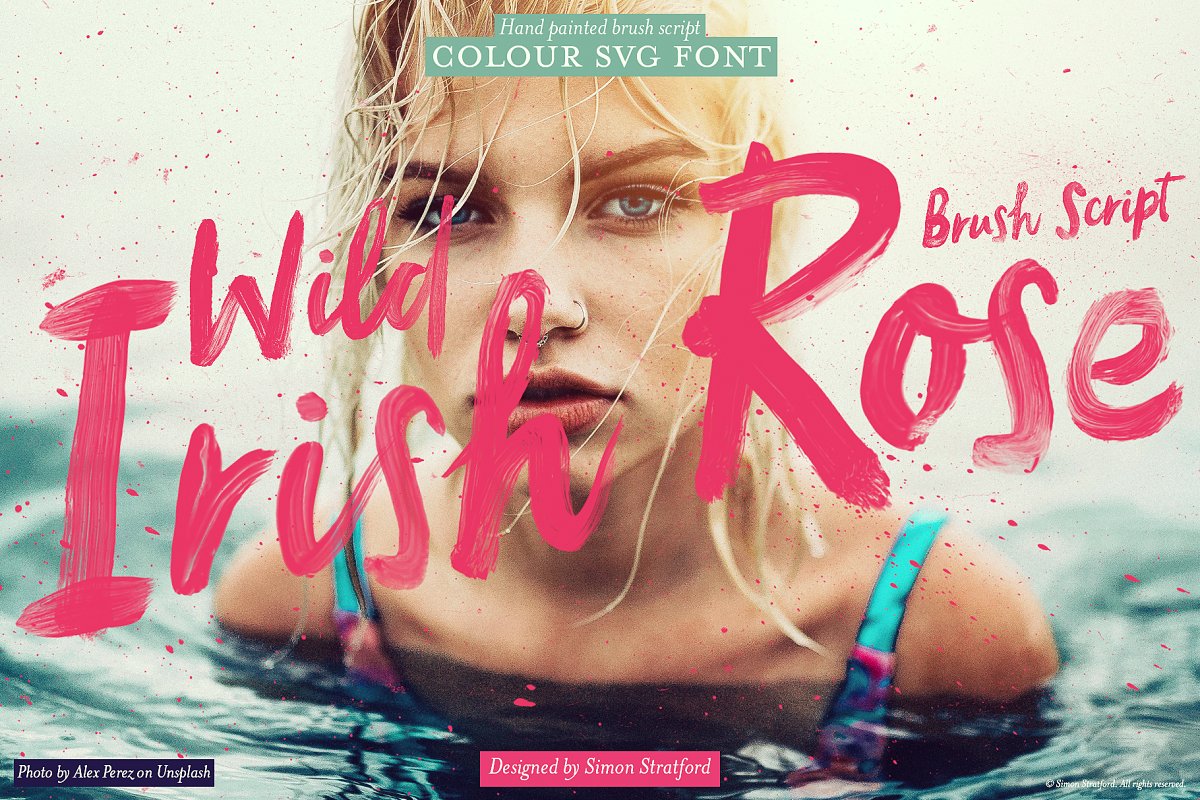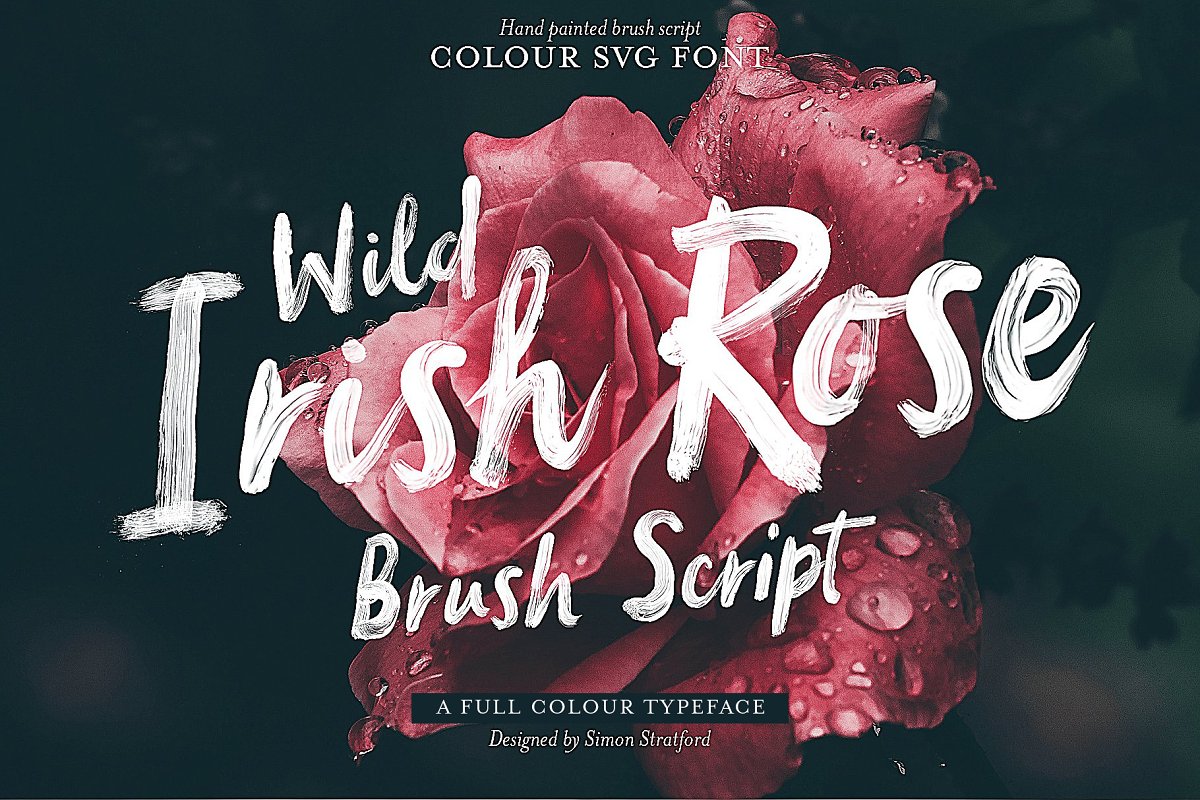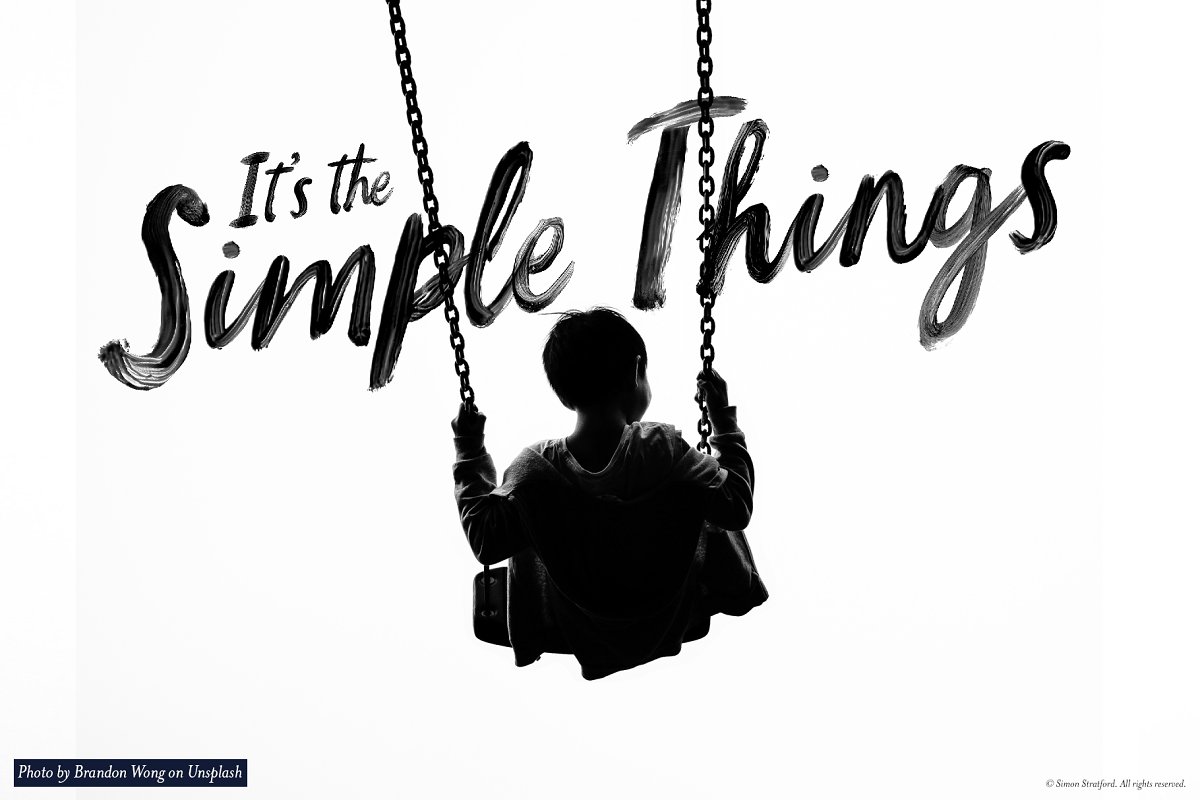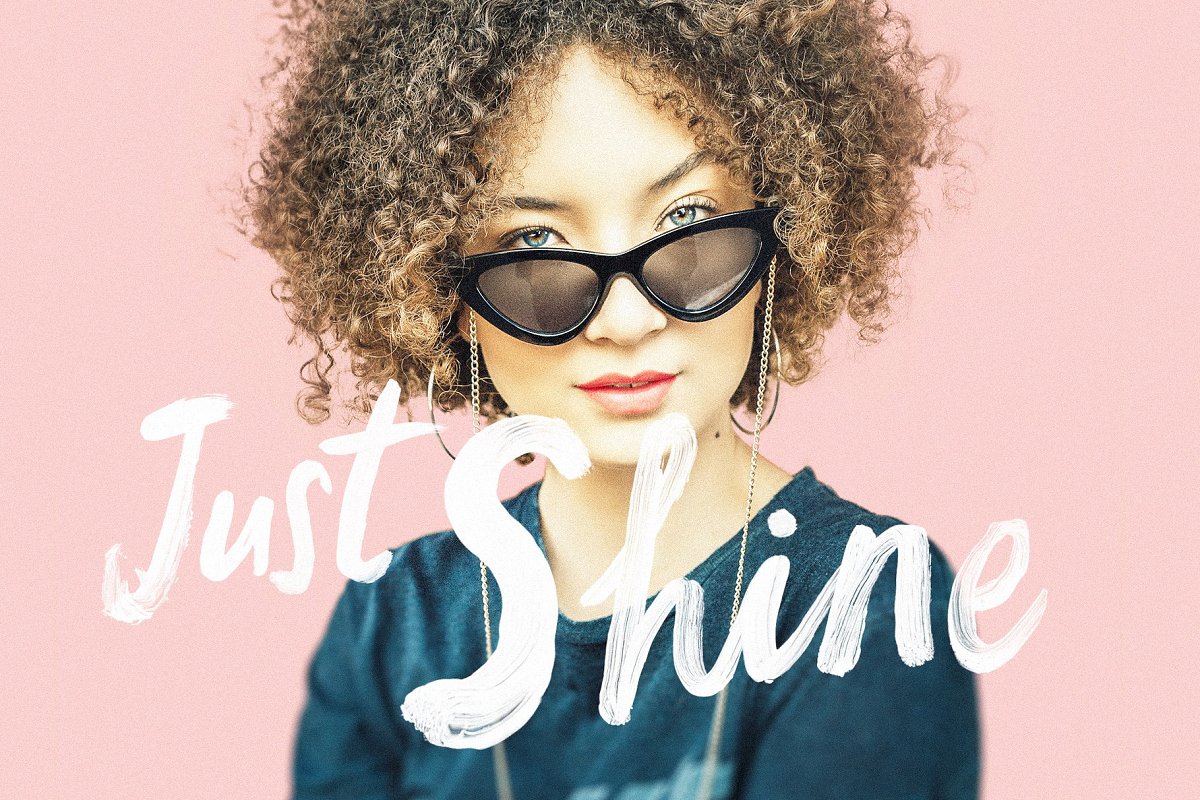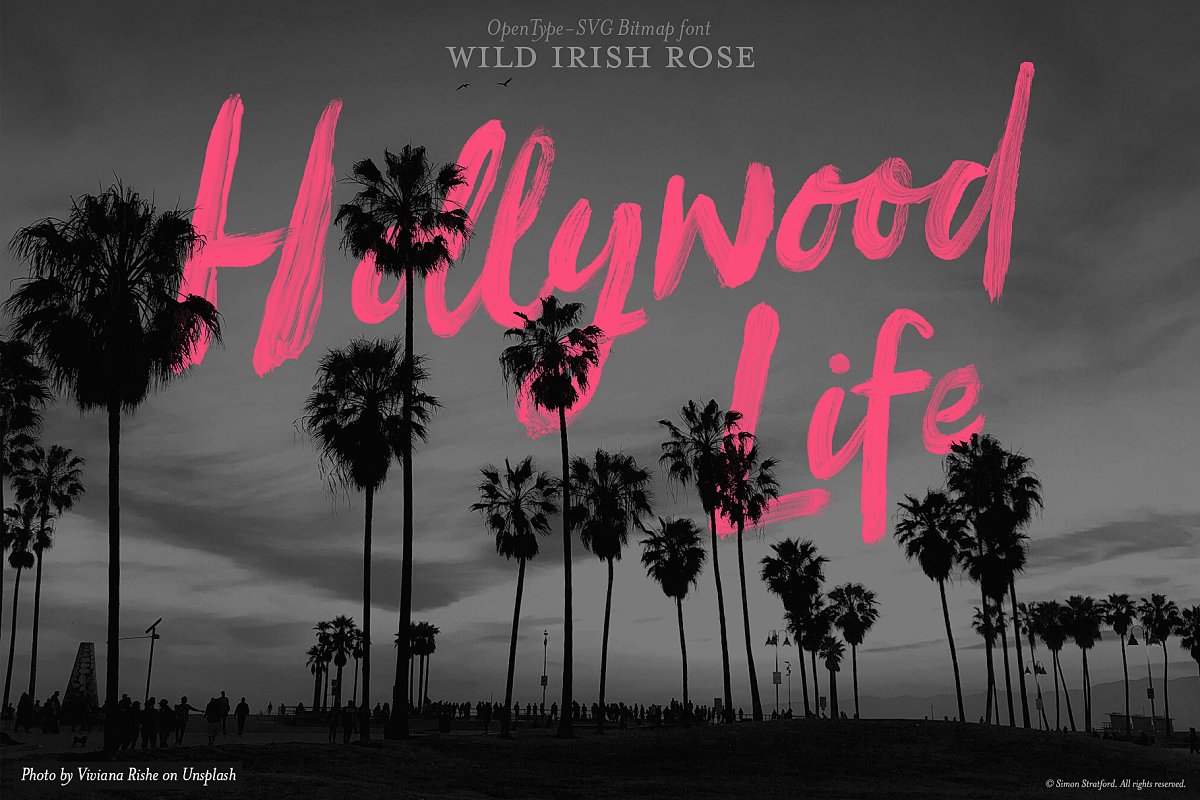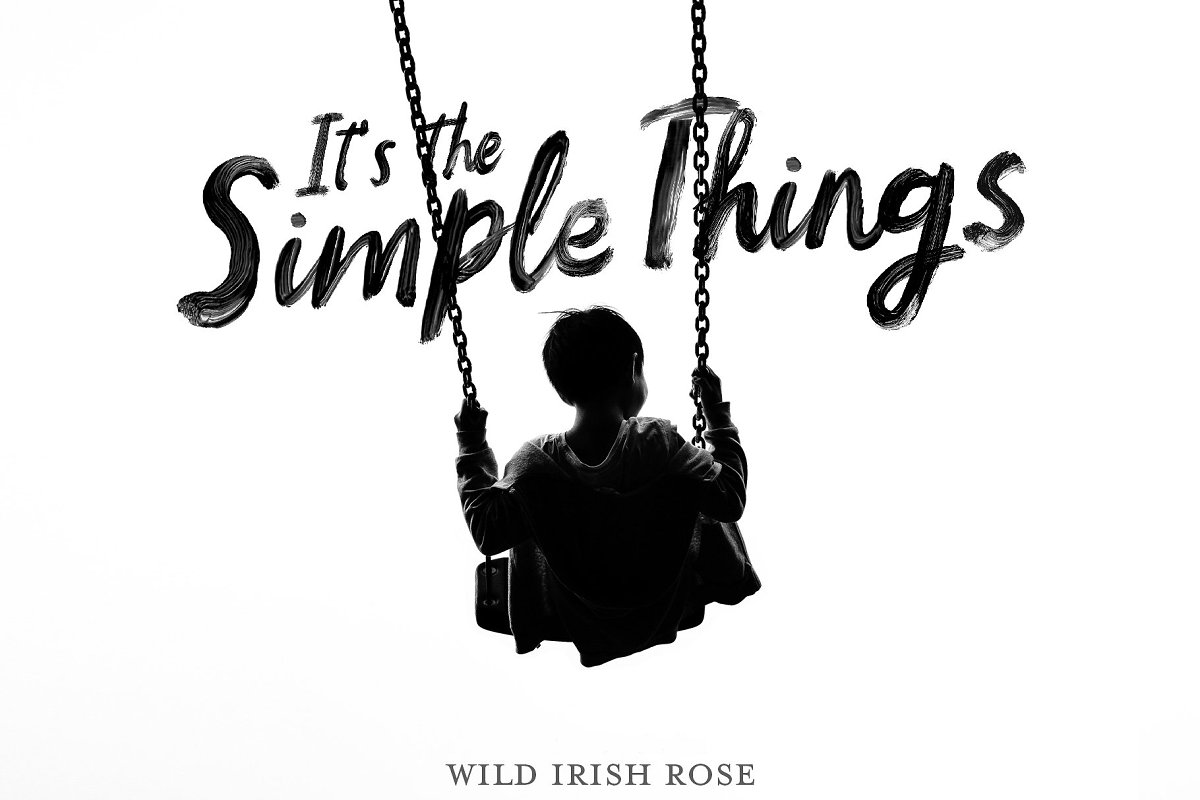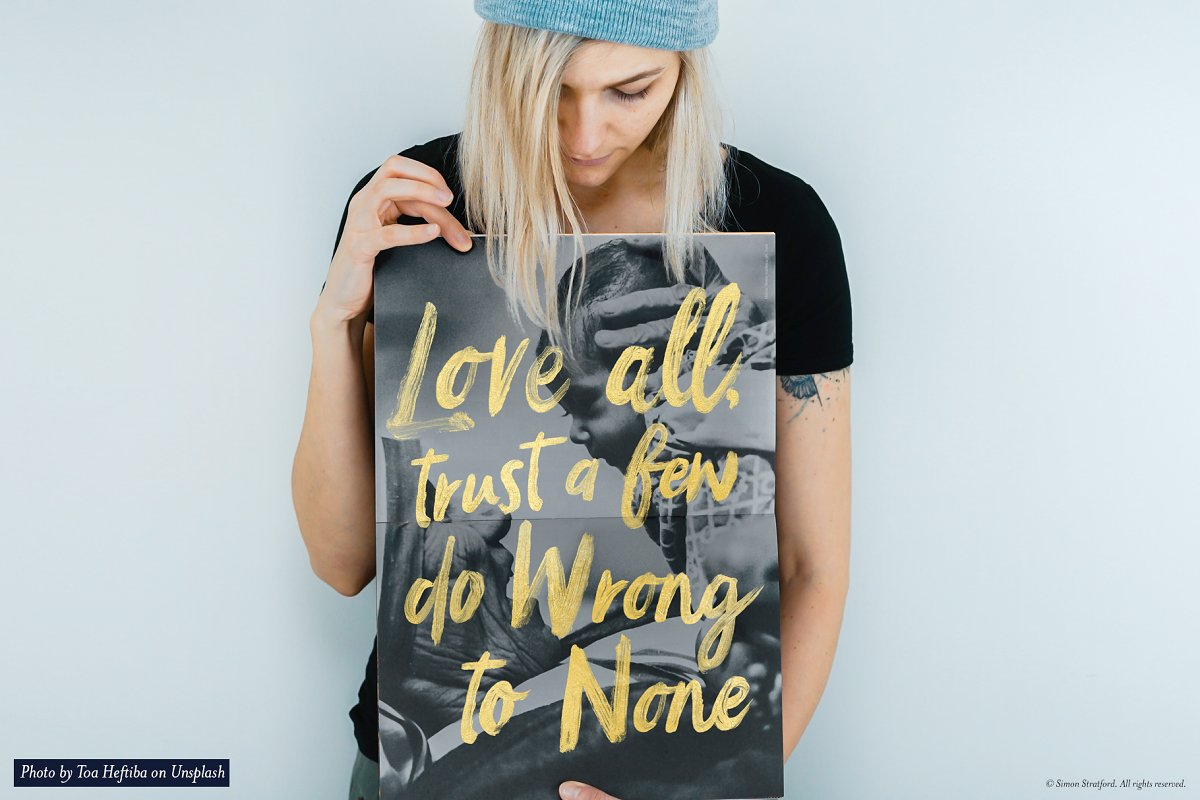
About the Script Wild Irish Rose Font
If this font were a celebrity, it would be more Sienna Miller than Bette Midler—but they are both fabulous, darling! Script font OpenType-SVG bitmap font It has an incredible level of detail for a typeface, You get all the lovely inconsistencies that a brush brings including paint blemishes and weird marks
You can’t get that detail in a regular vector font, And this font is NOT a regular vector font, its real paint! If you are not into experimental hand-painted typefaces, this is not for you, And because it’s a full-colour font, and with the help of Photoshop, you can change the colour in a heartbeat
With the built-in transparency, it’s perfect for overlaying over images in any colour—and looks fantastic, Script font AlternativesEach uppercase letter has at least 2 alternatives, and the lowercase has many more, Script font Font usage The Wild Irish Rose font is versatile enough for a broad range of uses